Typography does a lot more than display a business name. In branding, it often shapes the very first impression people ge
That's one reason elegant signature fonts continue to dominate premium branding. They feel personal in a way traditional corporate typefaces rarely do. A good signature font can make a brand feel handcrafted, approachable, and distinctive without sacrificing sophistication.
I've noticed that many creators gravitate toward handwritten logo fonts because they help bridge that gap between polished and personal. Photographers, designers, beauty brands, coaches, boutique shops, and artists all tend to benefit from this style when it's used thoughtfully.
The challenge is that not every beautiful script font performs well in real-world branding. Some look stunning in marketplace previews but become almost impossible to read on Instagram profiles, packaging labels, or watermark logos.
This collection focuses on elegant signature fonts that not only look refined but also hold up across practical branding applications. The emphasis here is on readability, versatility, and long-term usabilityโnot simply decorative flourishes.
- Best for photographers: Amorate Signature
- Best small-size monoline option: Vantage Costieno
- Best luxury option: Majestica Royale
- Best ready-made pairing: Shopia Duo
- Best versatile personal-brand option: Clairmont Script
How I Picked These
I compared these signature fonts by logo readability, stroke consistency, small-size performance, watermark clarity, packaging practicality, pairing flexibility, visual personality, and how well each style can keep a personal handwritten feel across websites, social profiles, business cards, labels, packaging, and other real brand touchpoints.
Best Elegant Signature Fonts for Photographer and Artist Logos
Creative businesses usually need typography that feels human. A photographer's logo, for example, often appears as a watermark, website header, social profile, and business card all at once, so flexibility matters.
Amorate Signature
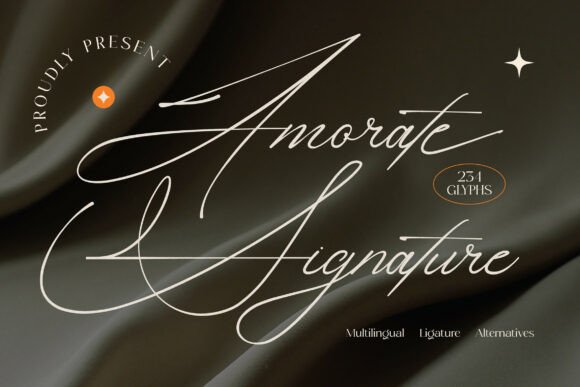
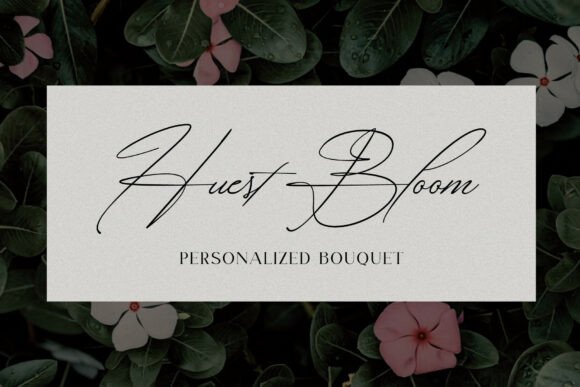
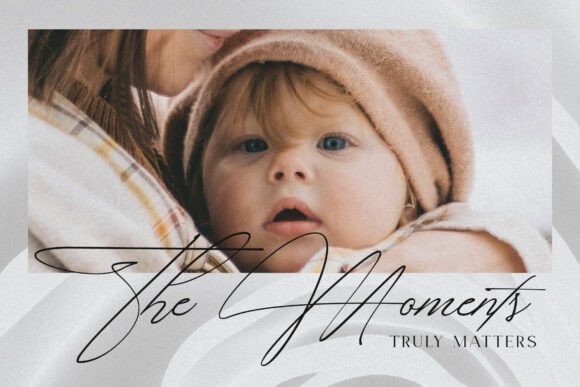
Amorate Signature has the kind of flowing movement many photographers look for. The elongated connectors and natural stroke rhythm feel surprisingly close to an actual handwritten signature rather than a scripted font pretending to be one.
It's especially suited for:
- Photography logos
- Artist branding
- Portfolio websites
- Signature watermarks
- Creative studios
One thing worth noting: the thinner strokes can disappear at very small sizes. If you plan to use it as a watermark on social media images, test it first. Some delicate signature fonts become muddy once compressed, and that's usually where problems show up.
Pairing Amorate with a clean geometric sans-serif creates a polished luxury look without feeling overly formal.
Novelist
Novelist feels softer and less polishedโin a good way.
Many luxury script fonts can come across as almost too perfect. Novelist keeps some of the natural irregularities you'd expect from genuine handwriting, which makes brands feel more approachable.
It works particularly well for:
- Author brands
- Lifestyle blogs
- Personal websites
- Photographers
- Stylists
If authenticity is more important than high-end glamour, Novelist is an easy font to recommend.
Everly Sign
Everly Sign leans feminine without becoming overly decorative. The relaxed handwritten style makes it especially appealing for boutique and creative brands.
Recommended for:
- Wedding photographers
- Beauty brands
- Boutique businesses
- Social media branding
- Lifestyle creators
The lettering is fairly delicate, so generous sizing helps maintain readability. This is definitely more of a display typeface than a workhorse branding font.
Top Modern Signature Fonts for Contemporary Brand Identities
Today's logos need to function eve
A signature font that only works in large headers usually creates headaches later.
Majestica Royale
Majestica Royale immediately communicates luxury.
The slender letterforms and controlled spacing create an upscale appearance without relying on excessive swashes or ornamentation. That restraint gives the font a timeless quality many premium brands look for.
Ideal for:
- Luxury fashion brands
- Premium beauty businesses
- Boutique hotels
- High-end consultants
- Luxury lifestyle brands
It pairs beautifully with minimalist serif fonts, especially when you want a premium brand identity that doesn't feel trendy.
Vantage Costieno
Most successful branding systems use two or three fonts: one primary display font, one supporting font for body text, and occasionally a third accent typeface.
What font pairs well with signature fonts?
Clean sans-serif fonts and refined serif fonts typically pair best with signature scripts because they provide contrast and improve readability.
Are signature fonts good for watermark logos?
Yes, especially monoline signature fonts. They generally remain legible even when used at very small sizes on photographs and digital content.